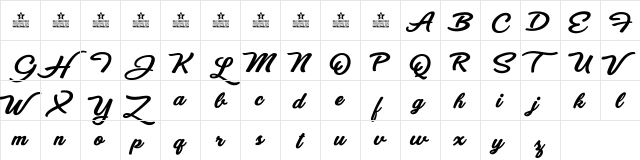
Eyes Wide Open Bold Personal Us Regular
| Foundry | Billy Argel |
| Designer | Billy Argel |
Design Context for Eyes Wide Open Bold Personal Us Typeface
Eyes Wide Open Bold Personal Us takes a measured approach to typography — its balanced proportions and neutral character make it a reliable workhorse for both digital and print work. Its bold stroke weight gives it real presence on the page.